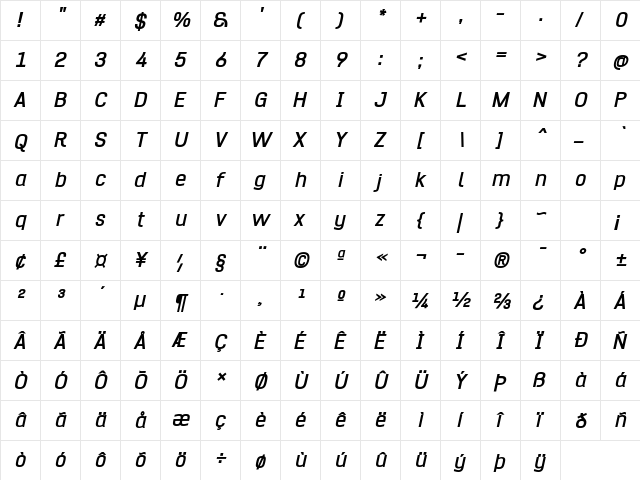
Hurufo & Numero Bold Italic Italic Font Preview
| Designer | Situjuh Nazara |
Design Context for Hurufo & Numero Bold Italic Typeface
Hurufo & Numero Bold Italic takes a measured approach to typography — its balanced proportions and neutral character make it a reliable workhorse for both digital and print work. The dynamic lean of this cut emphasises speed and emphasis in any layout. Its bold stroke weight gives it real presence on the page.
Pro Tip: Try Hurufo & Numero Bold Italic for annotation and caption copy alongside an upright companion — the contrast in angle creates a dynamic but ordered typographic system.